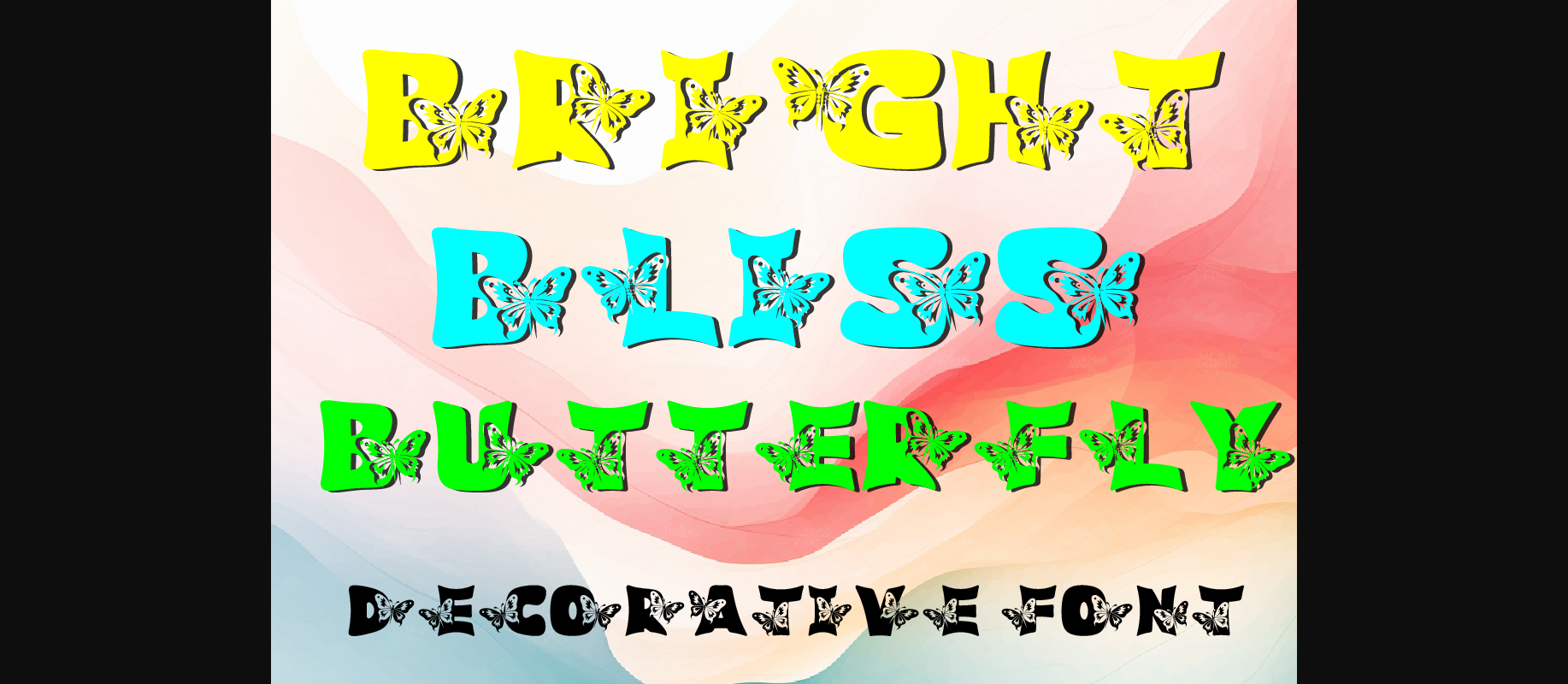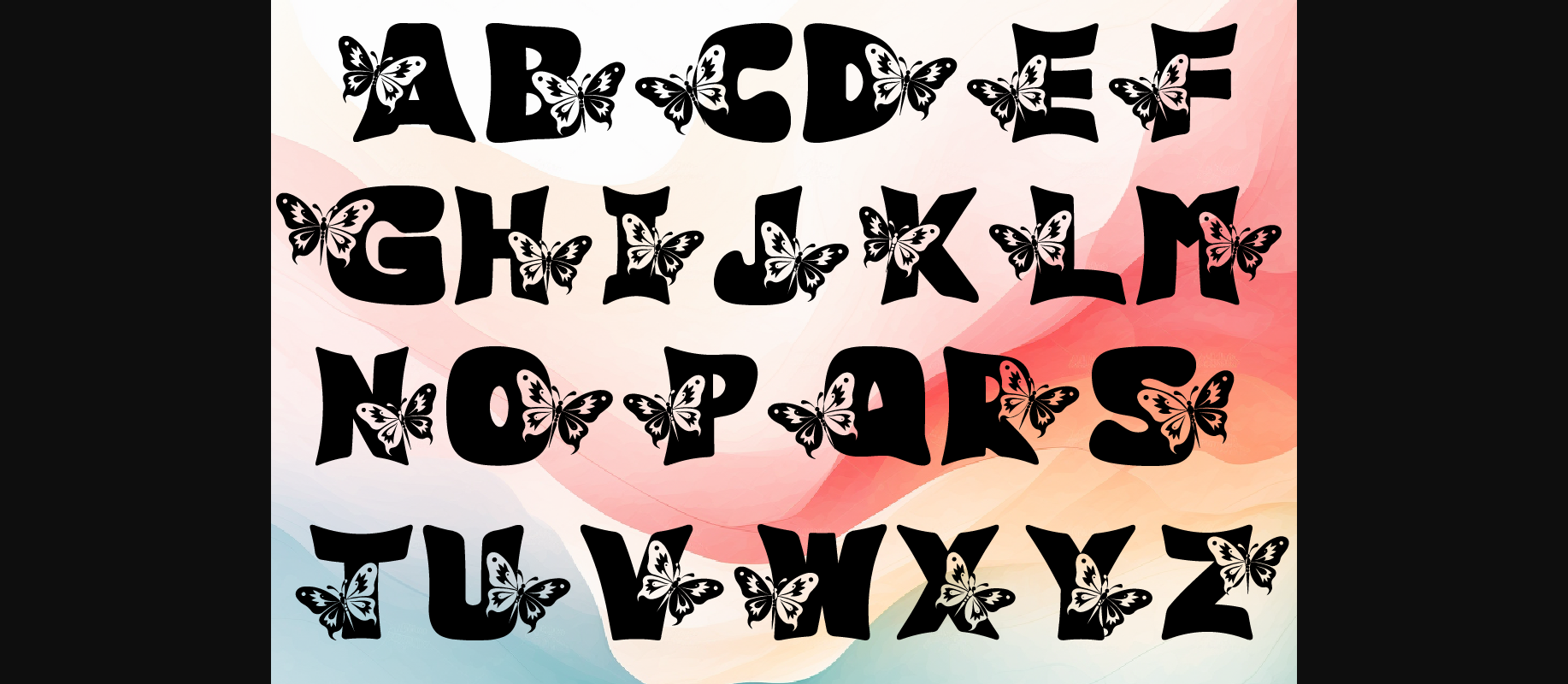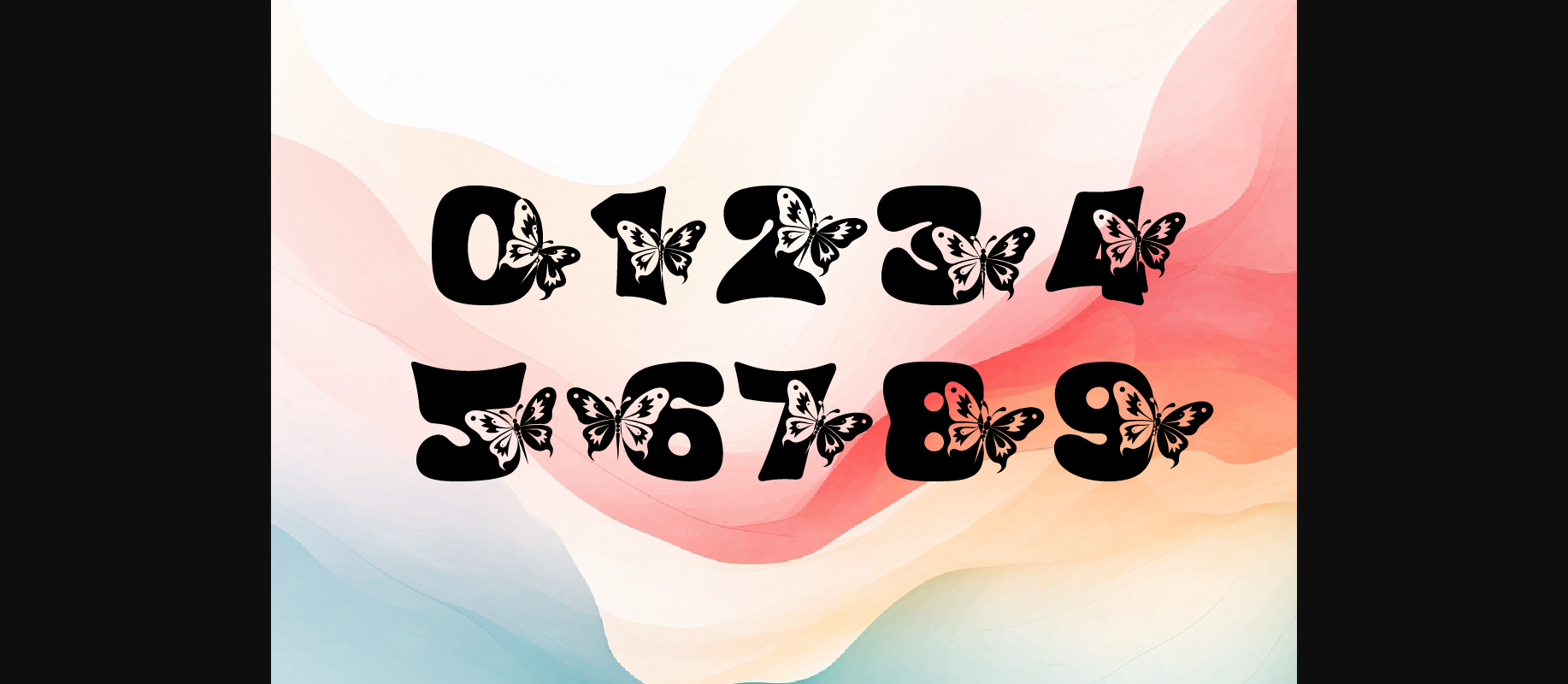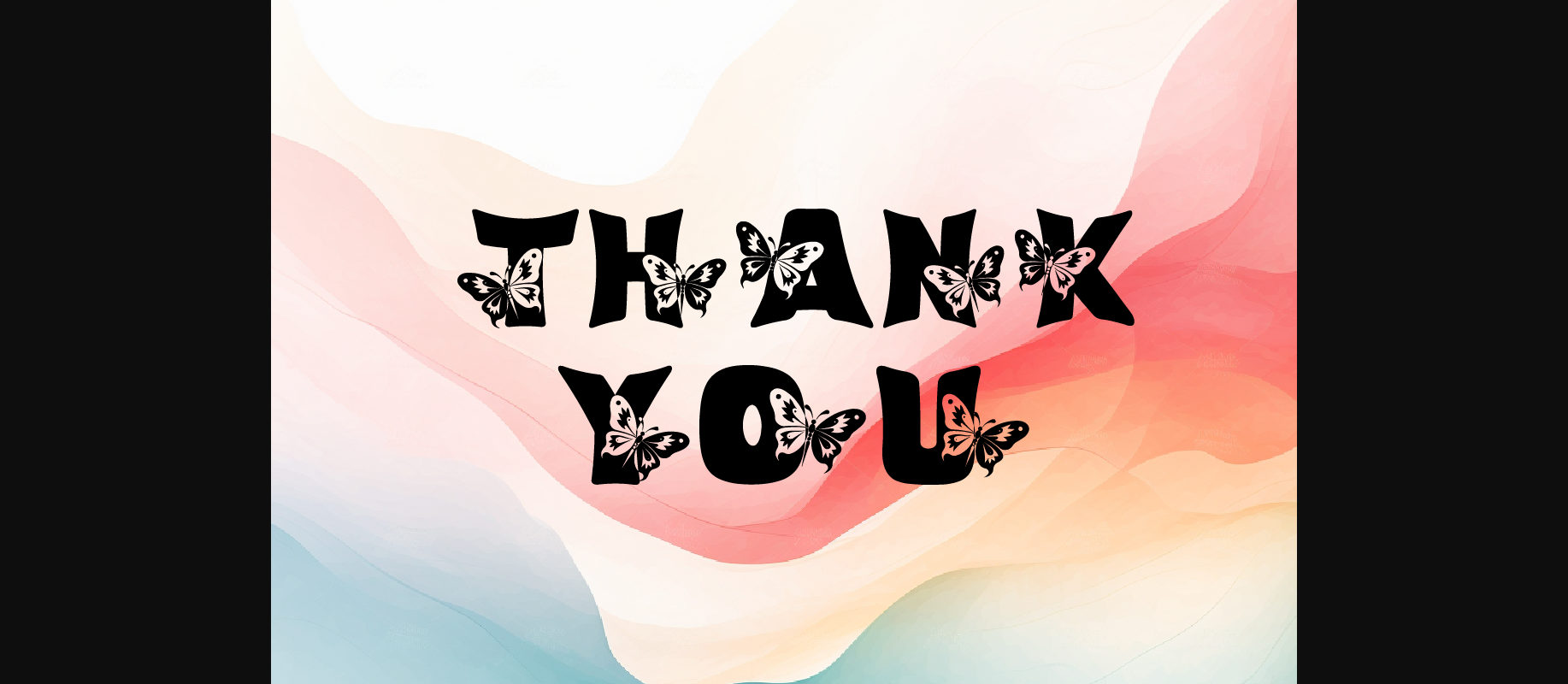
Butterfly Bright Bliss Font
About Butterfly Bright Bliss Font
Introducing Butterfly Bright Bliss Decorative Font, a captivating typeface that brings the beauty of butterflies to life in your designs! With a total of 36 characters, including 26 uppercase and 10 lowercase letters, this font adds a whimsical touch to any project. Perfect for creating logos, headlines, posters, and more, Butterfly Bright Bliss Decorative Font will make your designs stand out with its unique butterfly effect. Let your creativity take flight with this enchanting font!